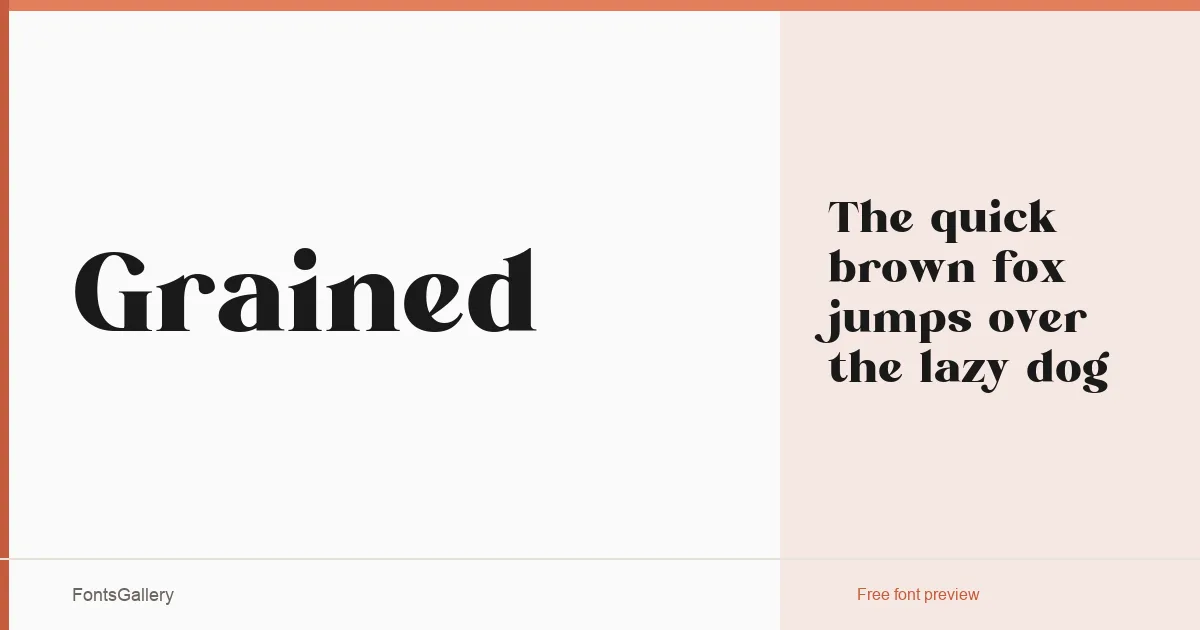
About Grained Font
Grained is a serif typeface crafted by Eternity STD, designed to evoke a sense of elegance, luxury, and modern sophistication. Its refined character makes it a compelling choice for projects that demand a classic yet contemporary visual presence. The result is a font that bridges timeless typographic tradition with a sleek, polished sensibility.
Grained features letterforms rooted in classic serif construction, elevated with a modern elegance that lends each character a luxurious quality. The typeface carries a refined poise, with details that feel both distinguished and current, making it equally at home in editorial and high-end branding contexts. Its careful balance of classic structure and modern restraint gives Grained a versatile yet unmistakably upscale character.
Grained excels in high-impact applications such as logos, book covers, magazine layouts, headlines, and branding projects where an air of sophistication is essential. Its strong visual personality makes it particularly well-suited for luxury brand identities and editorial design. For a striking typographic combination, Grained pairs beautifully with the clean neutrality of Helvetica or the complementary style of Ballmain.